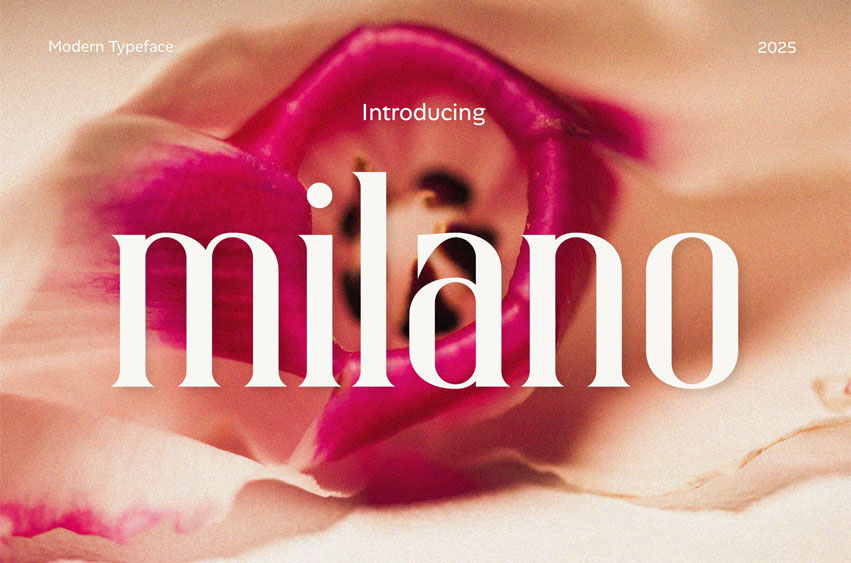
Milano Font
Milano Font is an elegant editorial display typeface crafted for branding and visual storytelling, blending smooth curves, high-contrast strokes, and refined serif terminals that feel expressive and composed. Its vibe is elegant, emotional, and confident—well suited for fashion magazines, beauty branding, editorial campaigns, and stylish promotional layouts.
The letterform structure highlights classic serif proportions with modern spacing, allowing Milano to shine in headlines, posters, packaging, and refined social media visuals. Milano helps brands speak with feeling and clarity. From editorial spreads and branding systems to posters, product packaging, and social media campaigns, this typeface creates attention-grabbing headlines with a soft emotional tone. Its expressive contrast supports storytelling, making it ideal for designers who want elegance, warmth, and visual depth in every composition.
Key Features : Expressive Editorial Character • High-contrast strokes for strong visual emphasis • Soft curves that add warmth and emotion
Built for Branding & Campaigns • Ideal for fashion, beauty, lifestyle, and creative studios • Enhances logos, headlines, and key messaging
Balanced Serif Structure • Refined proportions for clear large-size readability • Smooth rhythm that supports elegant layouts
Versatile Visual Performance • Works beautifully in print and digital formats • Performs well on imagery, gradients, and clean backgrounds
Create visuals that feel expressive and intentional. Use Milano today to elevate branding, editorials, and campaigns that deserve elegance, emotion, and confident typography.